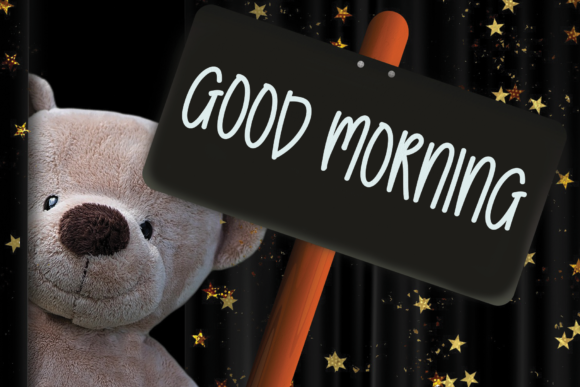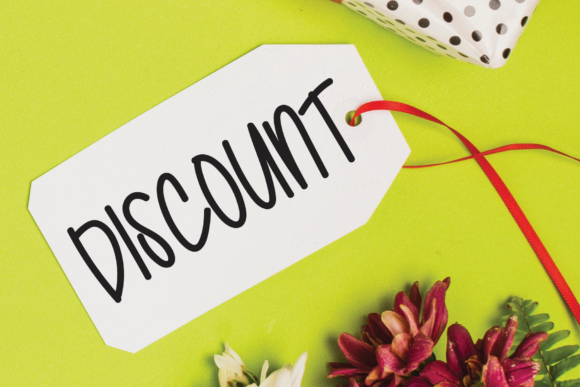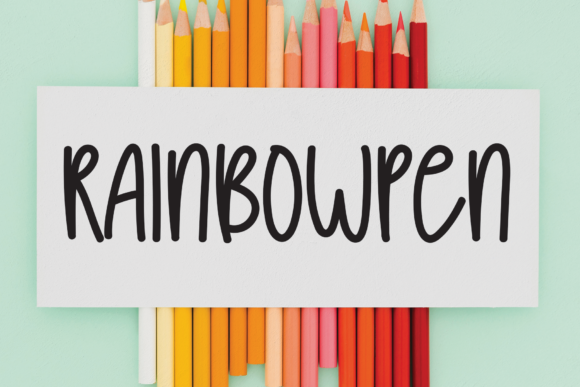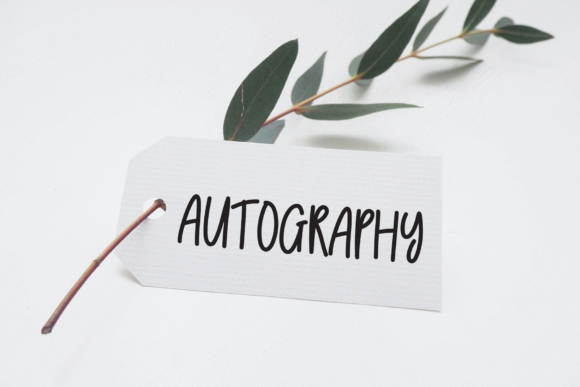
Christmas December Font
About Christmas December Font
Christmas December is a creative script handmade font that you can use for wall displays, wedding invitations, social media post logos, ads, product packaging, product designs, labels, photography, watermarks, invitations, stationery, and any project that requires taste handwriting.